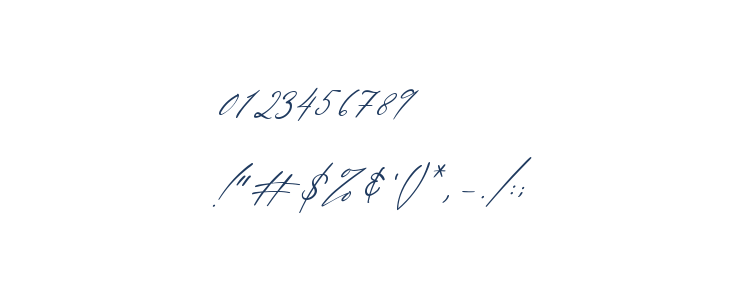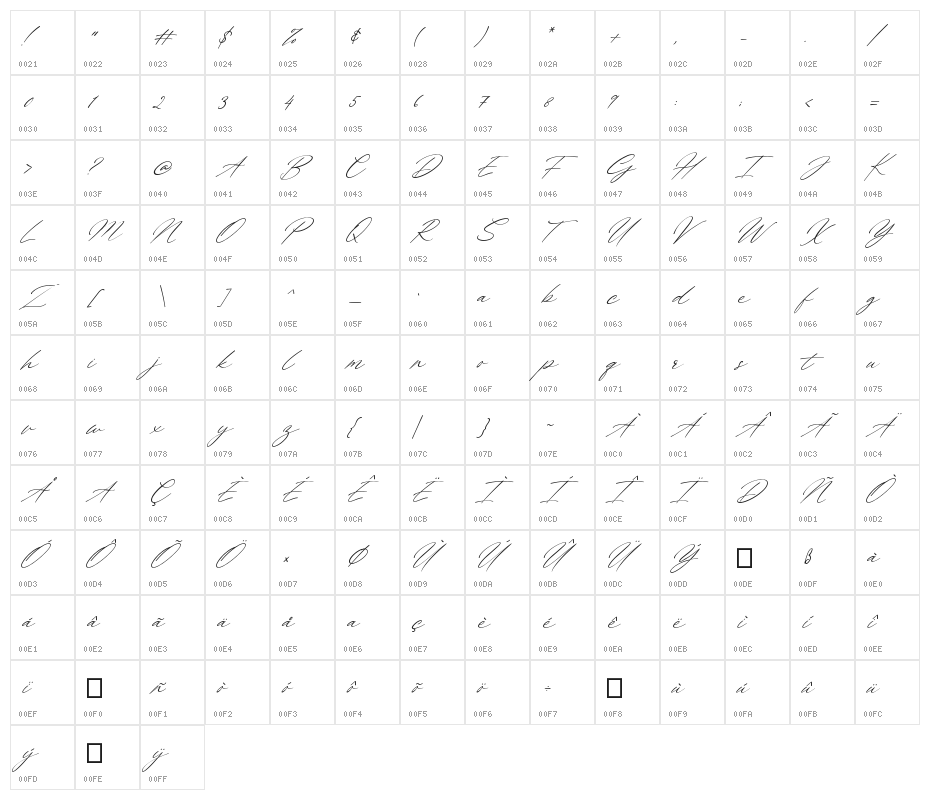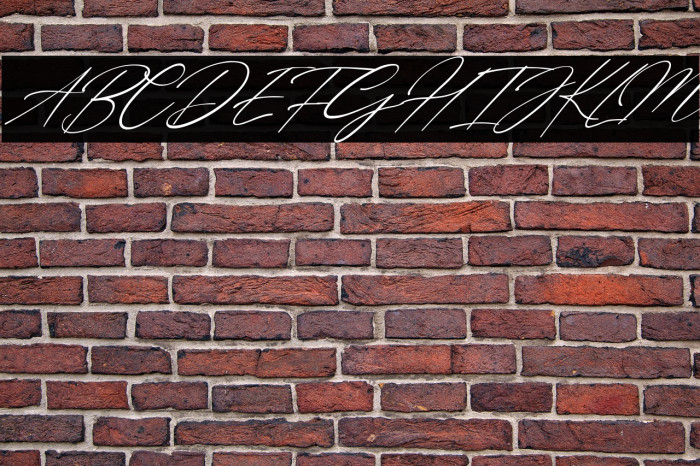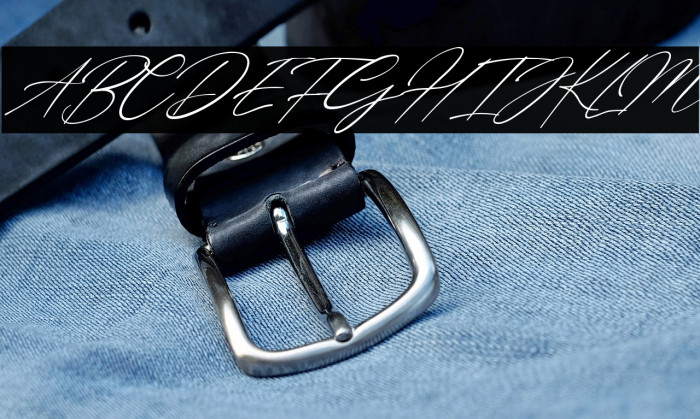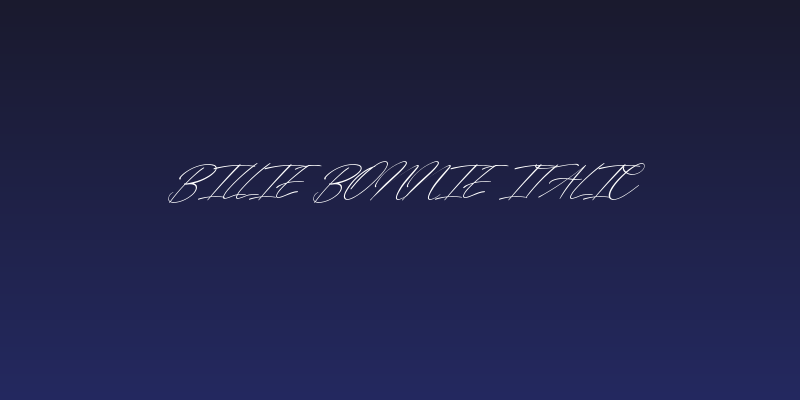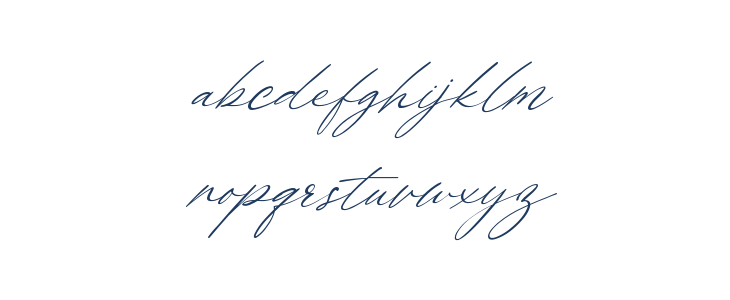
Billie Bonnie Italic Font
Billie Bonnie Italic Description
This font exudes elegance and fluidity, characterized by its cursive, handwritten style. The letters are connected with smooth, flowing strokes that give it a sophisticated and graceful appearance. The italic slant enhances its dynamic and lively feel, making it ideal for projects that require a personal touch. The uppercase letters are bold and prominent, while the lowercase letters maintain a consistent flow, adding to the overall harmony of the font. The numerals and special characters are crafted with the same attention to detail, ensuring a cohesive look across all elements.